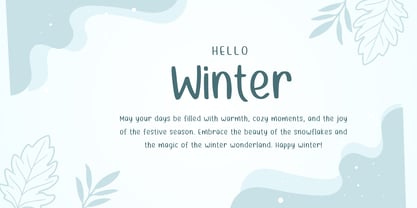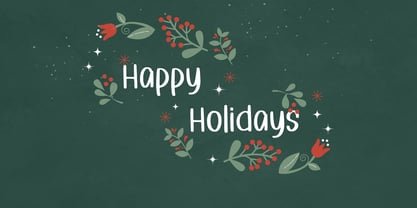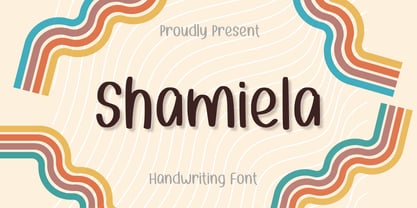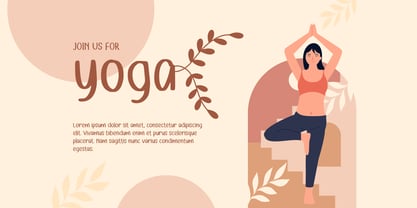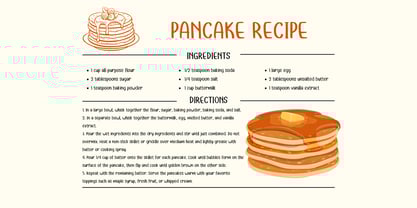
Shamiela
by Aisyah
The Shamiela Font Family was designed by Nur Aiysah Amalia and published by Aisyah. Shamiela contains 1 styles.
Introducing Shamiela - an adorably chic handwritten font that's perfect for adding a little charm to your creations. Impeccably fitting for craft adventures, noteworthy projects, and sprinkling creativity wherever your design journey takes you. Every swoop and curve of the Shamiela font resonates with a unique coolness, perfect for your most expressive endeavors. Make your projects speak volumes with the added dash of personality that only Shamiela can provide.
Designers: Nur Aiysah Amalia
Publisher: Aisyah
Foundry: Aisyah
Design Owner: Aisyah